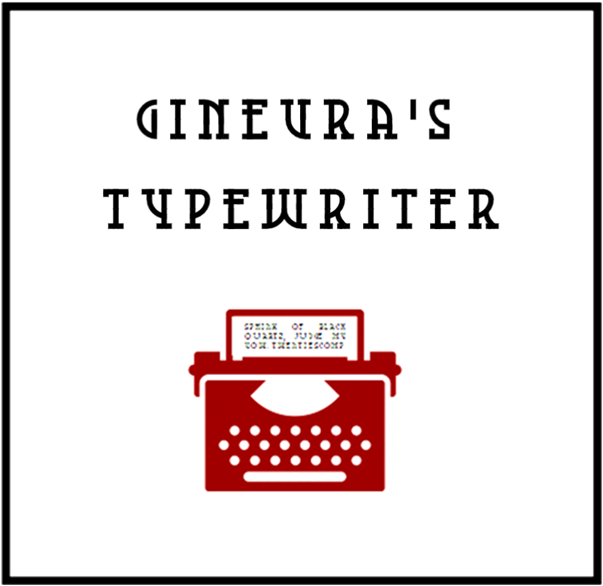
I like it a lot. The only "but" is why the B has a cut in its bottom arc? It's the only glyph with it...
thank you for pointing that out, it should be remedied now
The clean and clear rendering of the glyphs is very endearing. Plus it's full of personality. Love it.